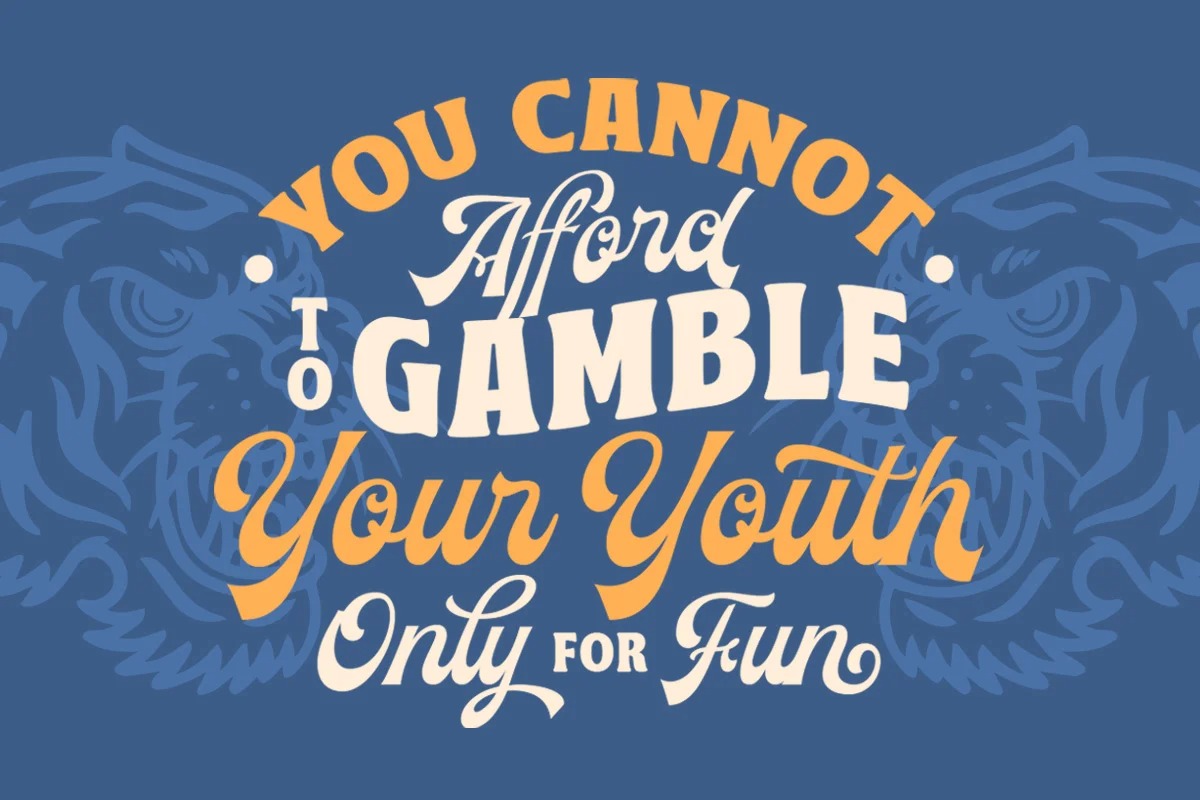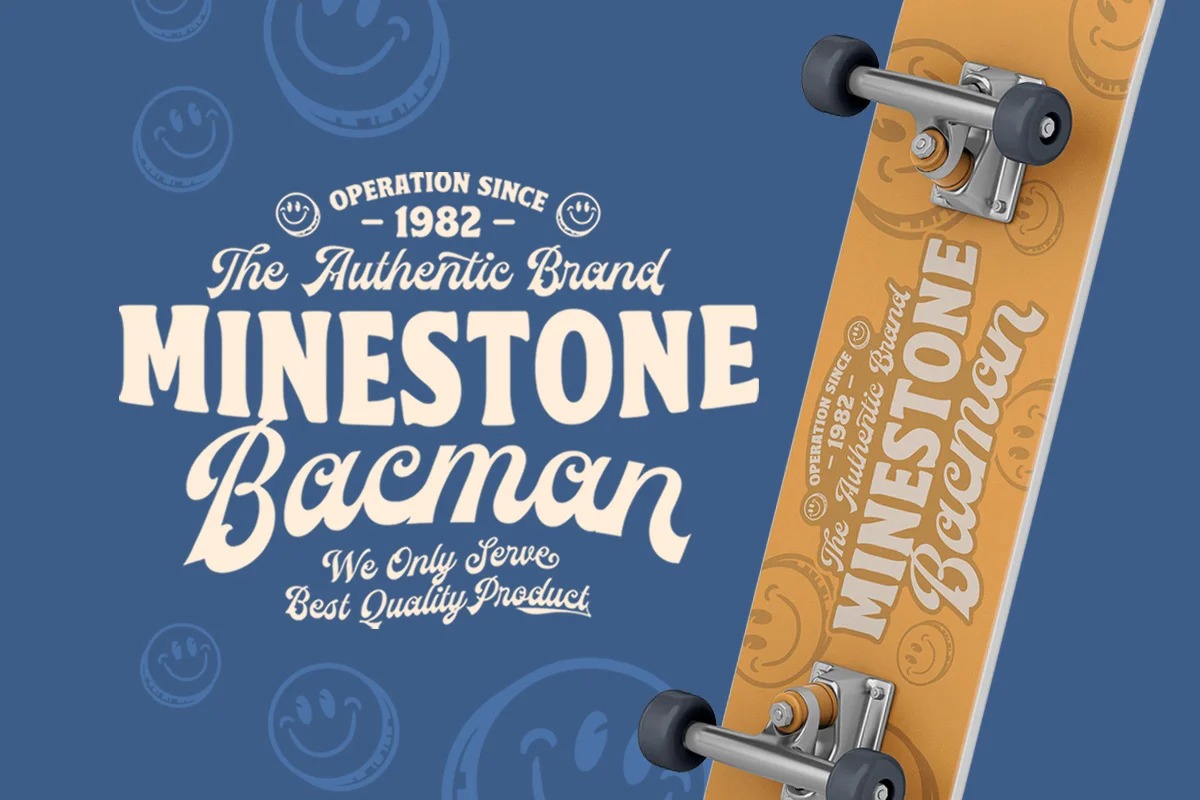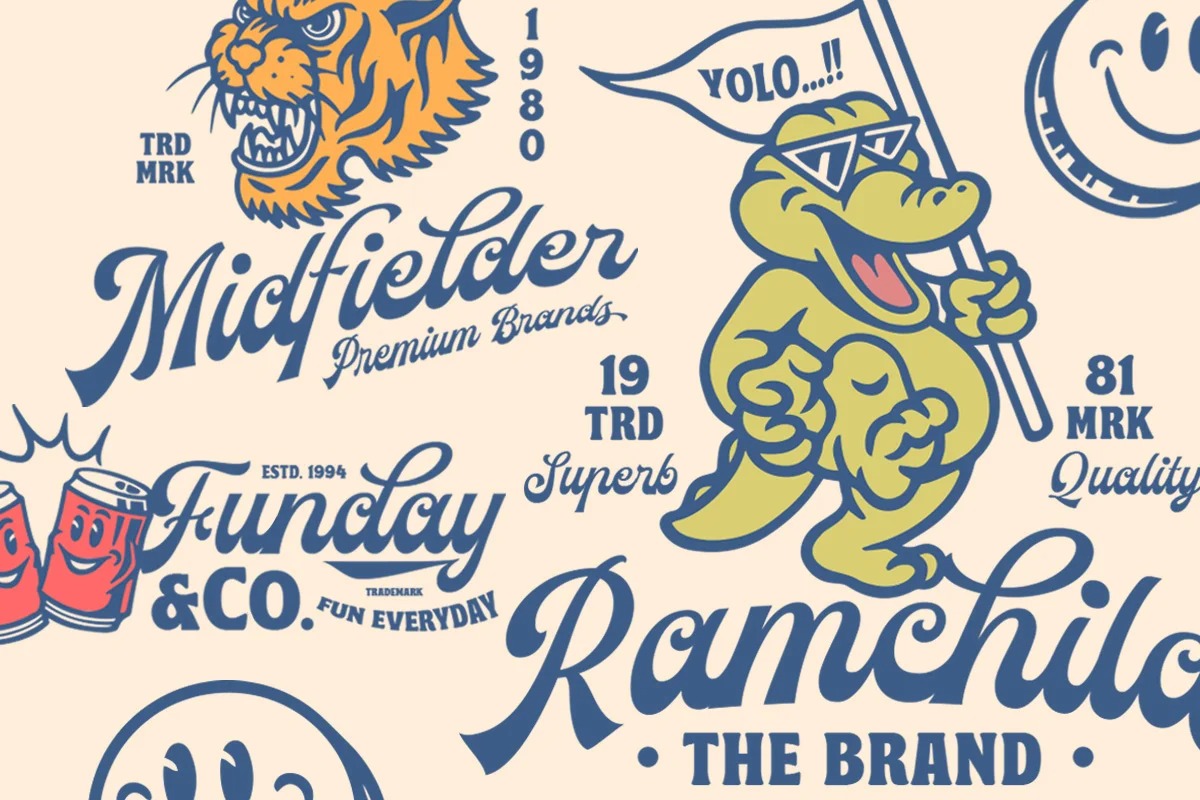
Rawnster Script Font
This is an elegant bold script typeface with retro look. Comes with 2 styles, clean and textured. You will also get several retro cartoon character as addition to your project, great to use as t-shirt illustration!
This font duo is also perfectly made to be applied especially in logo, headline, signage and the other various formal forms such as invitations, labels, logos, magazines, books, greeting / wedding cards, packaging, fashion, make up, stationery, novels, labels or any type of advertising purpose.